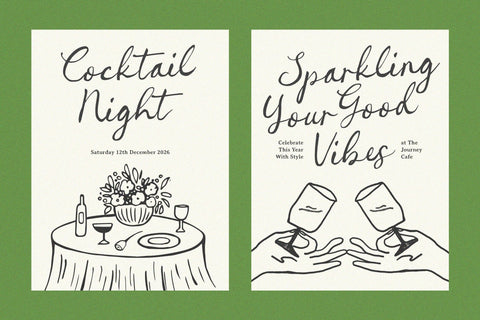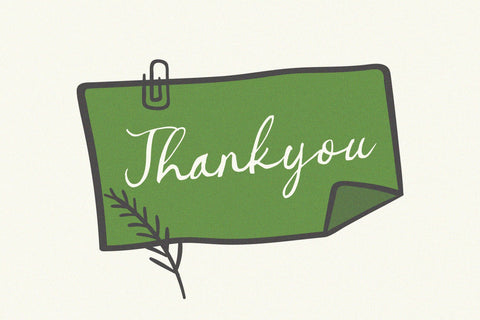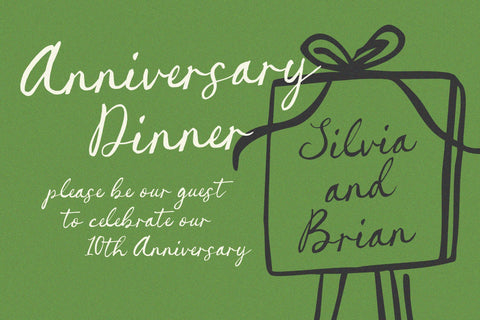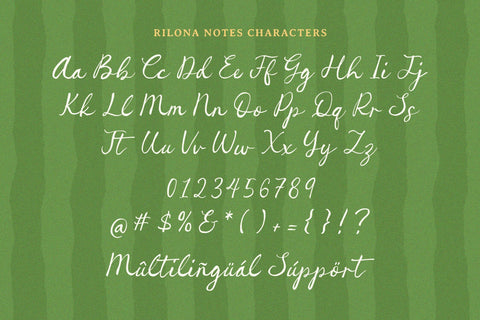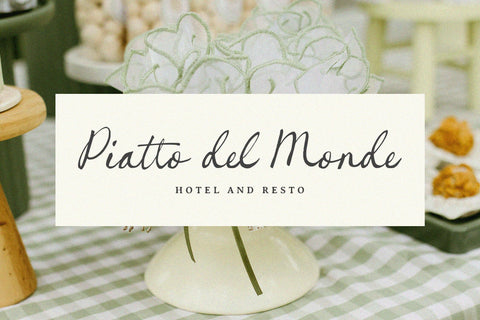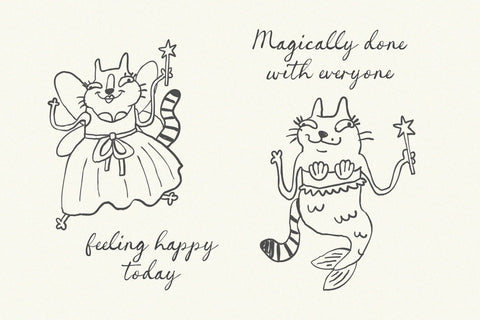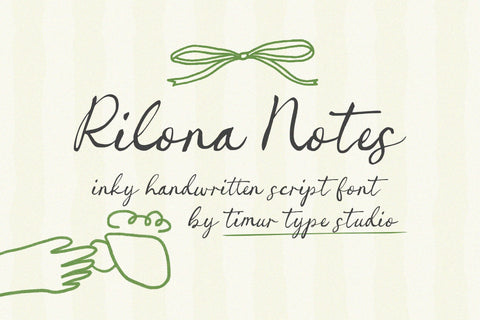
Rilona Notes - Inky Handwritten Script Font
Rilona Notes is a Inky Handwritten Script Font
Rilona Notes is a inky, handwritten script font with a natural, artistic flair. Its flowing, brush-style strokes give text a personal and expressive feel—perfect for creative designs, journaling, branding, and invitations that want a handcrafted touch. The irregularities and texture mimic real ink on paper, adding warmth and charm to any project.
Rilona Notes Font also supports multilingualism